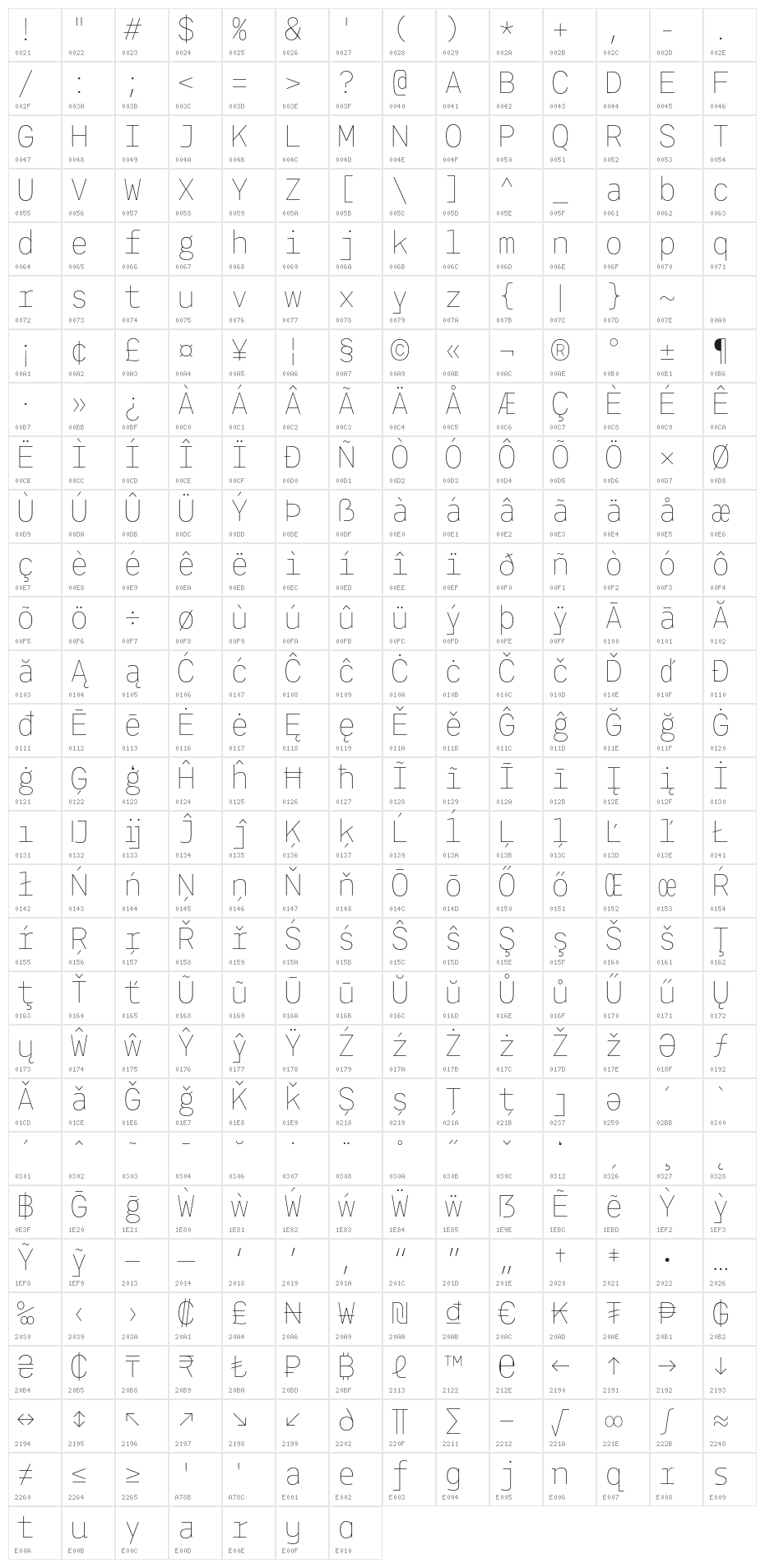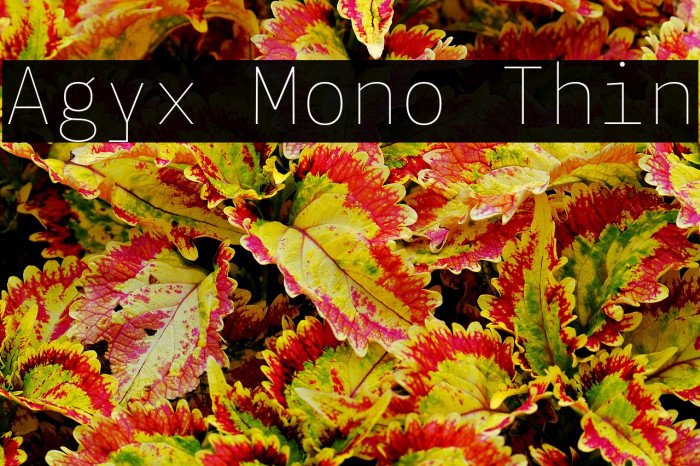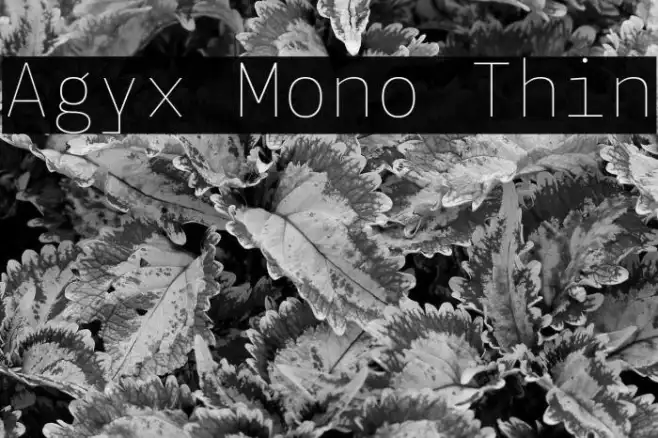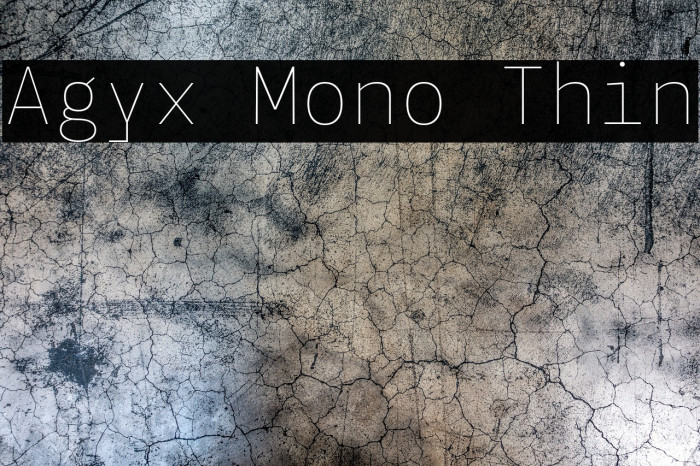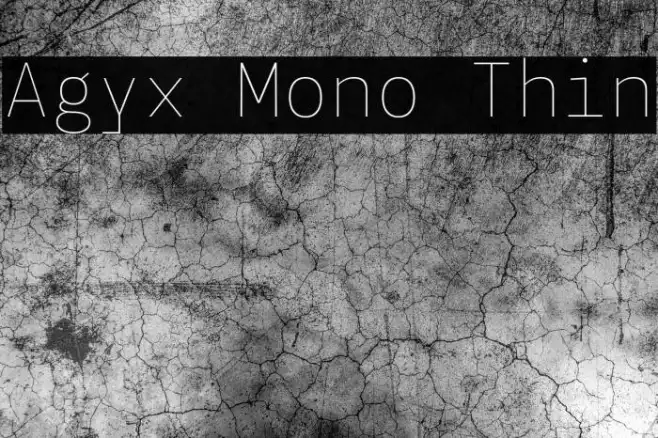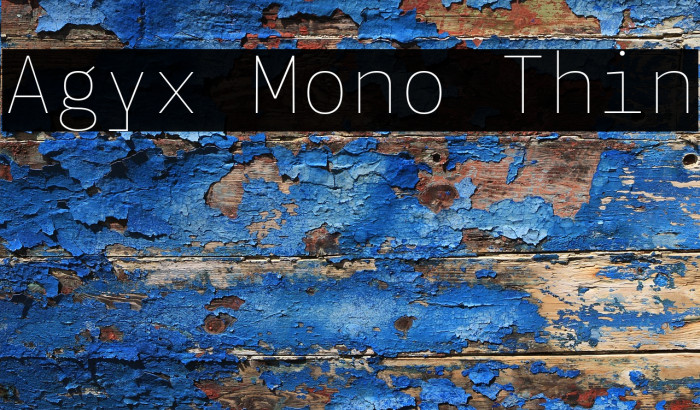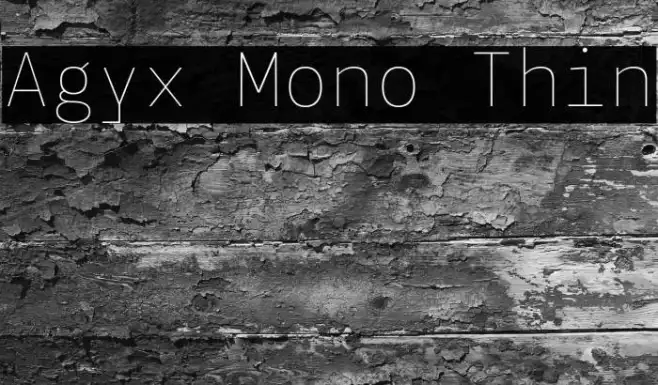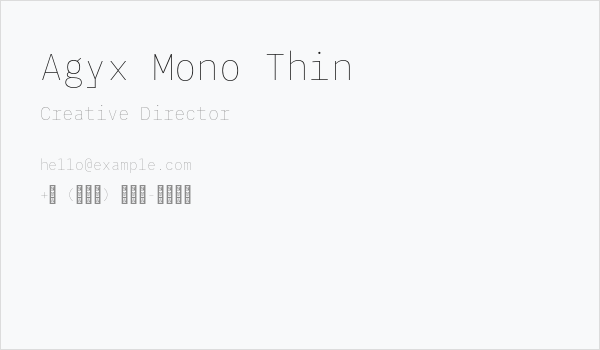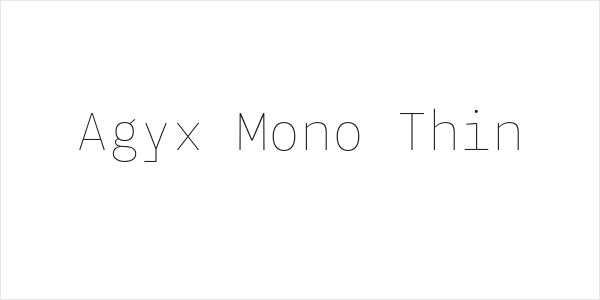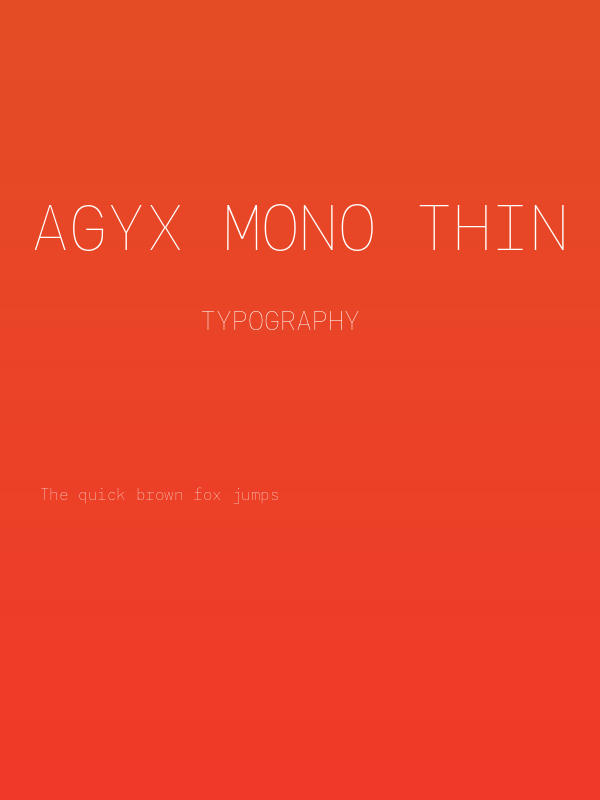
Agyx Mono Thin Font
Agyx Mono Thin Description
This font features a clean, minimalist design with a monospaced structure, characterized by uniform spacing between characters. The thin strokes give it a delicate and modern appearance, making it suitable for digital displays and coding environments. The uppercase and lowercase letters maintain a consistent height, enhancing readability. The font lacks decorative elements, focusing on simplicity and functionality. Its geometric shapes and straight lines contribute to a sleek and professional look, ideal for projects requiring clarity and precision.
| Use Case | Coding, Technical documentation, Digital displays |
| Proposed Projects | Ideal for coding, technical documentation, minimalist graphic design, and modern branding projects. |